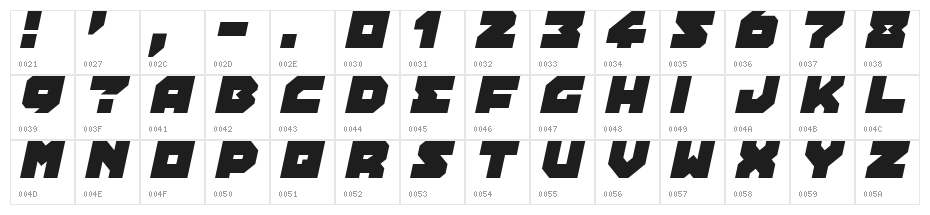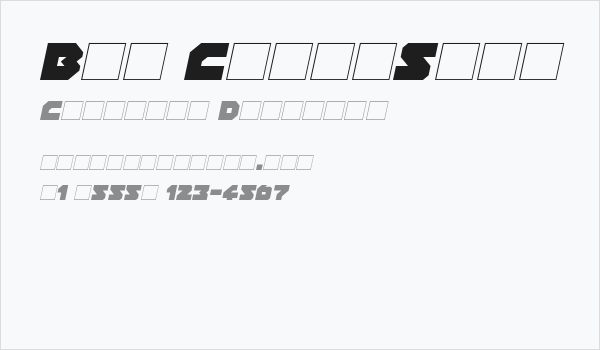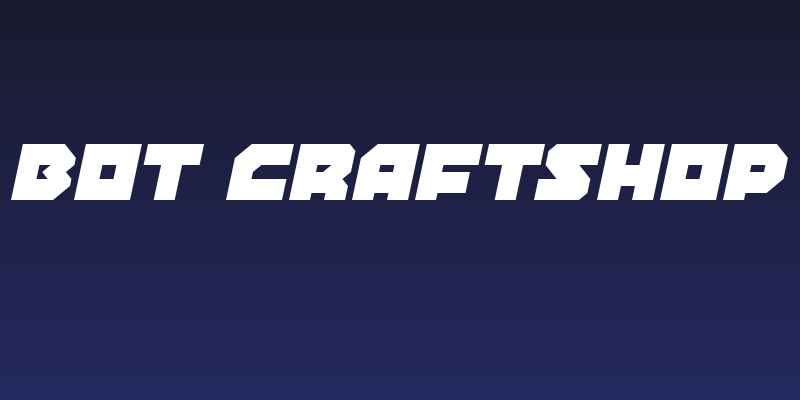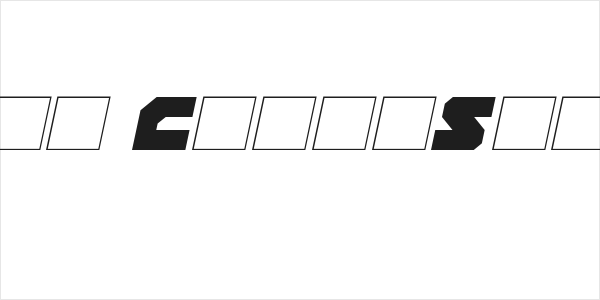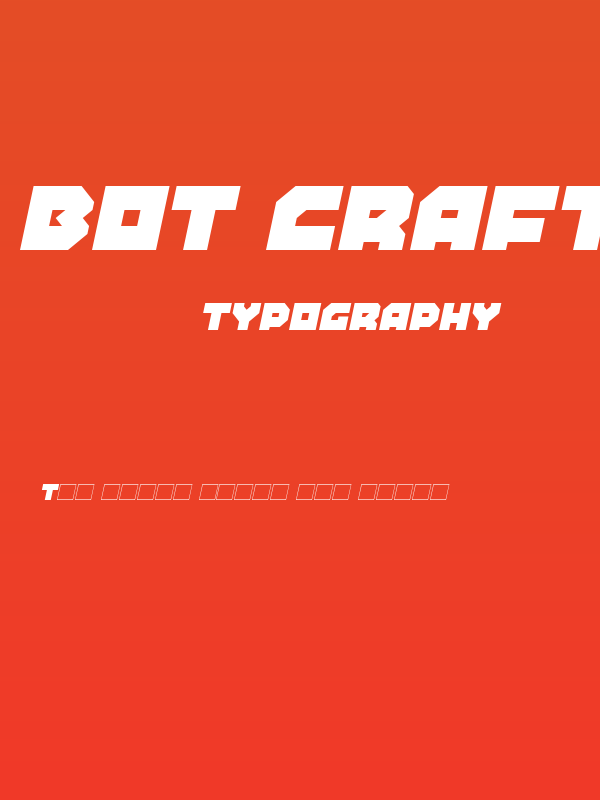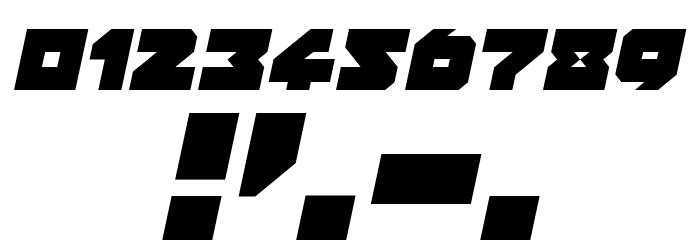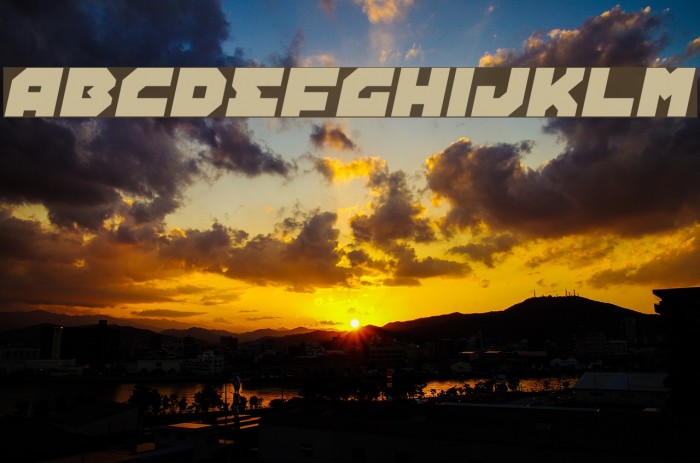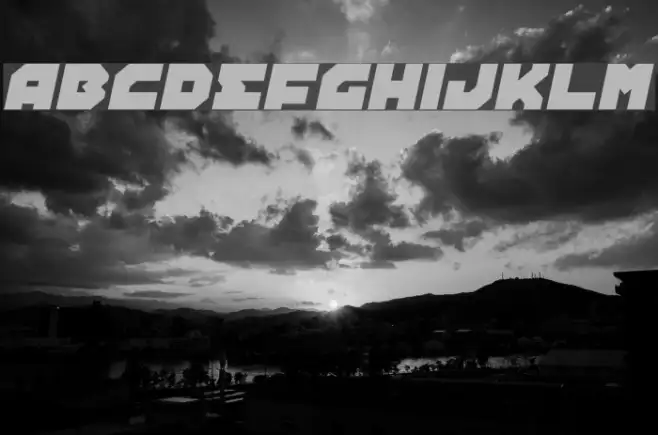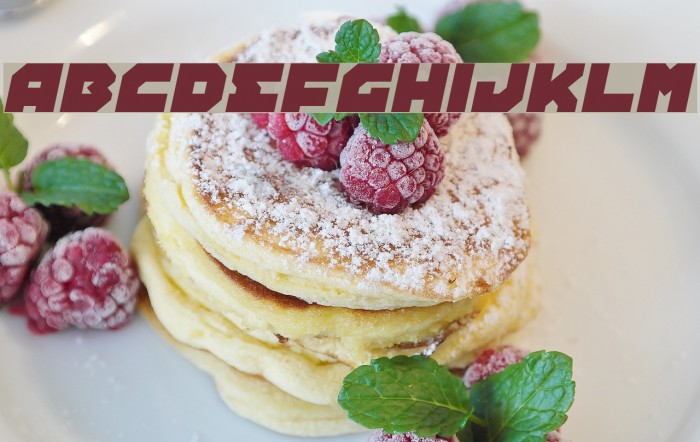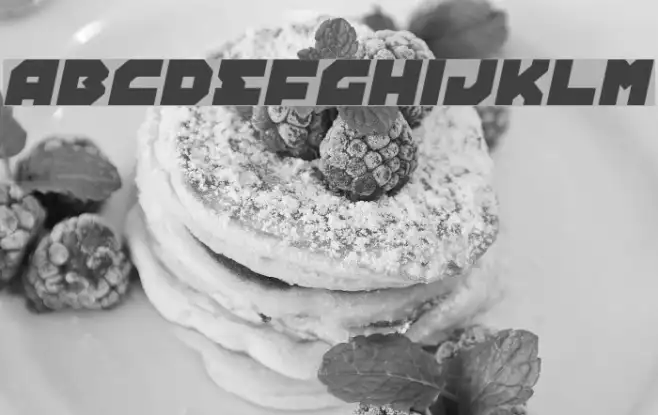
Bot CraftShop Font
Bot CraftShop Description
This font features a bold, geometric design with sharp angles and a futuristic aesthetic. The characters are constructed with thick, block-like shapes that convey a sense of strength and modernity. The uppercase and lowercase letters maintain a consistent style, with the uppercase being slightly more pronounced. Numbers and special characters follow the same design principles, ensuring uniformity across all glyphs. The font's unique style makes it stand out, ideal for projects that require a bold and impactful visual presence.
| Proposed Projects | Ideal for branding, posters, video game graphics, and any project needing a strong, modern look. |